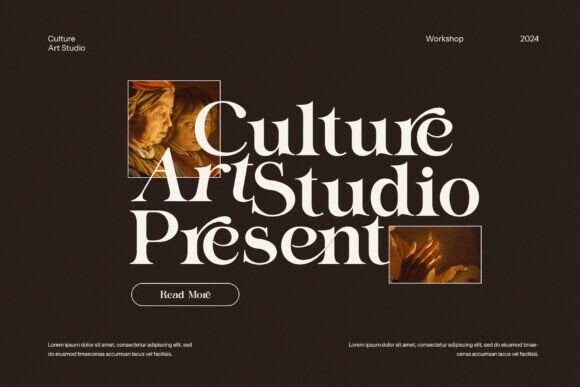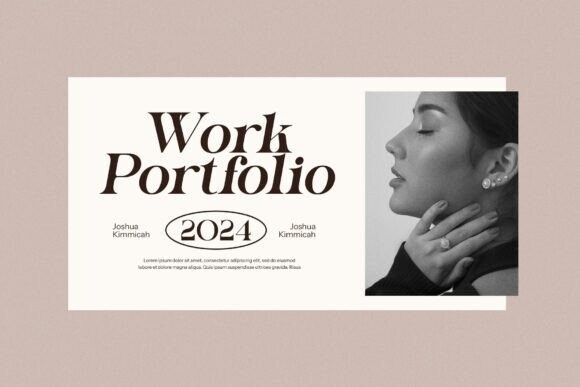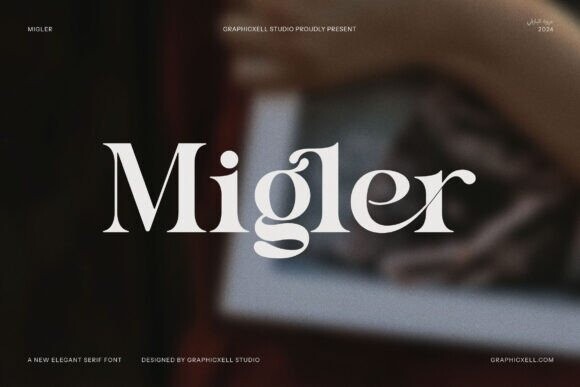
Migler Font
Designer: Graphicxell
Migler Font is a sophisticated ligature serif. This typeface has been made carefully to make sure it’s premium quality and luxury feel. The ligatures make this typeface unique and stand out rather than the regular serif font. Very suitable for logo, headline, title, and the other various formal forms such as invitations, labels, logos, magazines, books, greeting/wedding cards, packaging, fashion, makeup, stationery, novels, labels, or any type of advertising purpose.